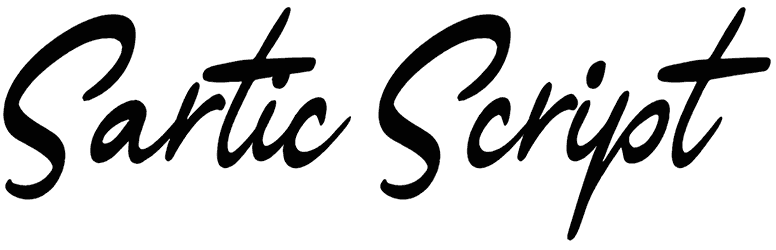
Sartic Script Font
Manuscript texts are always one of the best selections for any theme, and Sartic Script can provide you with a nice choice. This handwritten font with its casual and twisty outward can be harmonized with modern and classic designs. With an almost full cover of characters, this script font will be an eye-catching pickup for many layouts, from greeting cards to Instagram posts.